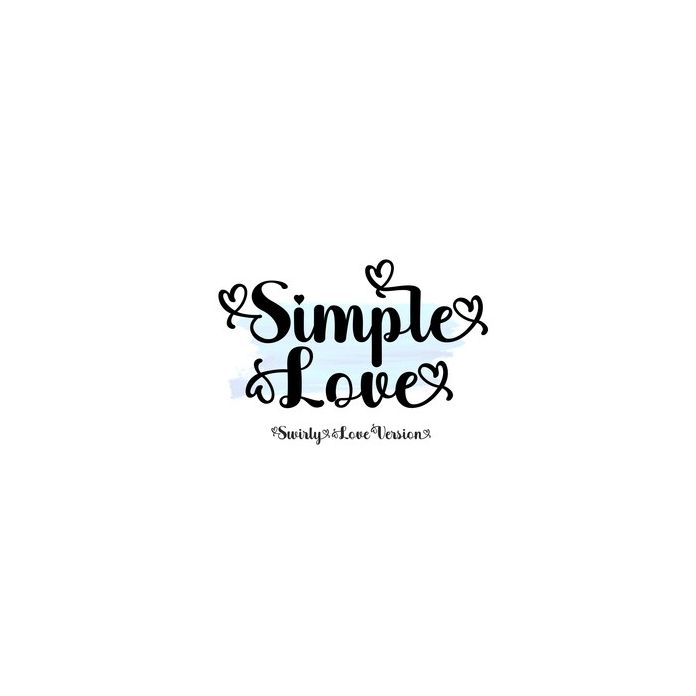
Simple Love Script Font
Simple Love Script Version This handwriting is cursive with a bold font that is firm and easy to read specifically designed for your design needs with the latest characters, of course, very attractive for today's market, because the shape of this script font is unique and has a special character that you can combine in your design. Now go ahead and use it for New Year's celebration projects, products, crafts, invitations, and personalization. Includes alphabet, numbers, and punctuation.